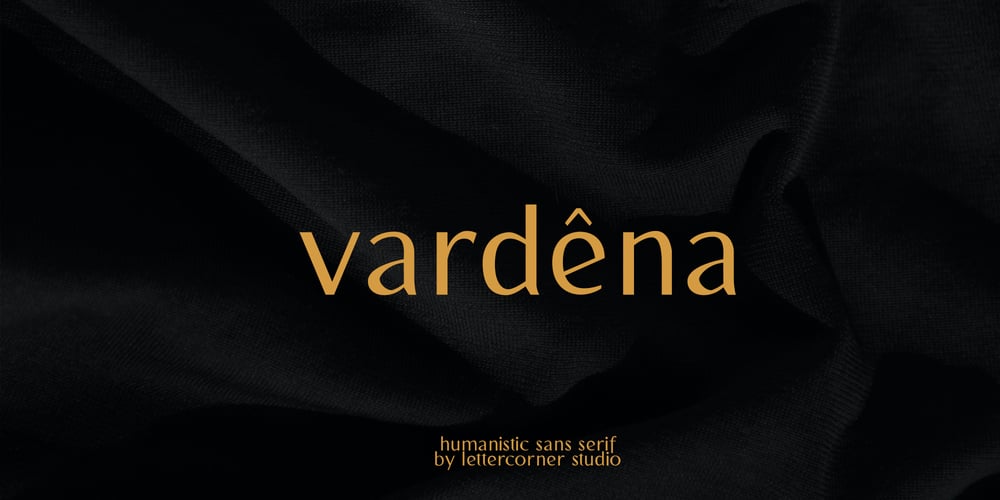
Vardena
Vardena font
Vardena Font Family was designed by Muhammad Afif Ersya and published by Mevstory Studio. Vardena contains 1 styles and family package options. Vardena, clean sans serif with a retro, humanist and elegant touch.. Specially designed for simple, clean, humanist projects. The font is perfectly suitable for creating elegant, clean, retro design such as logo, packaging, social media, and more.